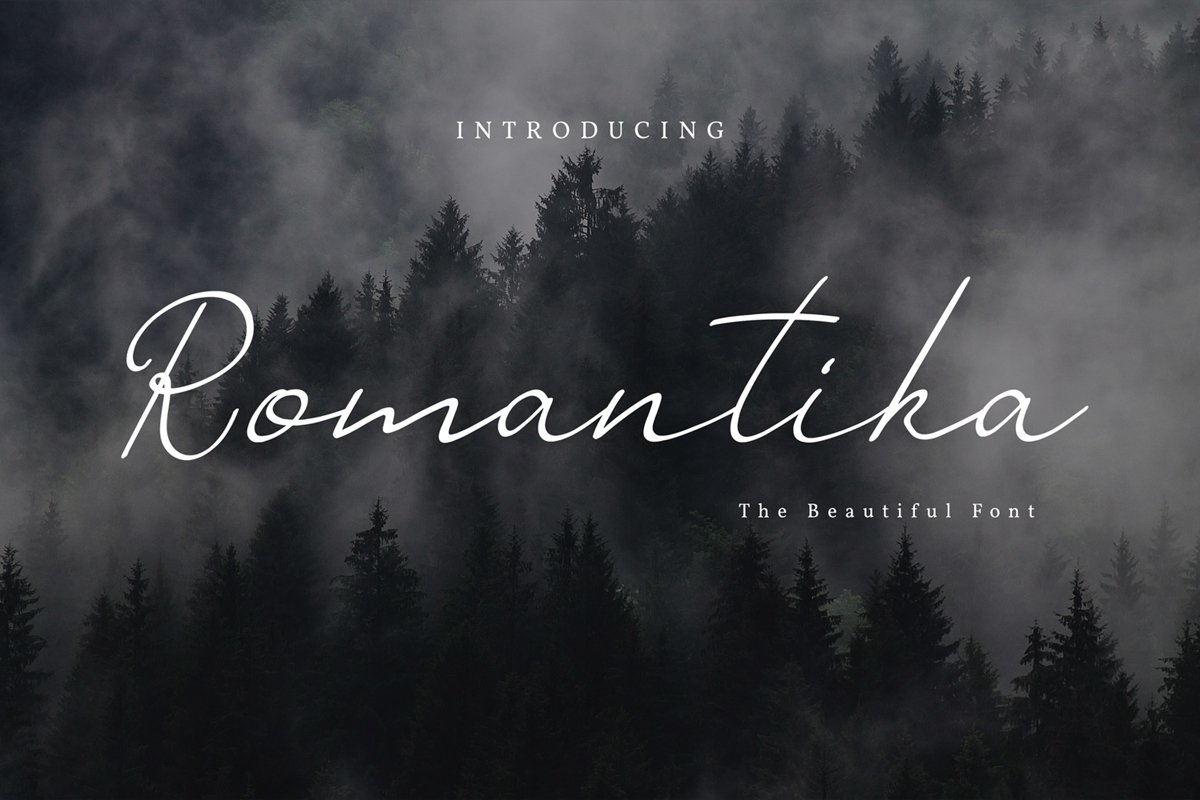
“Romantika” is a signature calligraphy font with ethereal, adorable touch. It is perfect for branding, event invites, lovely Instagram posts. “Romantika” includes full set of charming uppercase and lowercase international letters, numerals, punctuation, and giving realistic hand-lettered style.That's it! I really hope you enjoy it - please do let me know what you think, comments & likes are always hugely welcomed and appreciated. More importantly, please don't hesitate to drop me a message if you have any issues or queries, and remember.